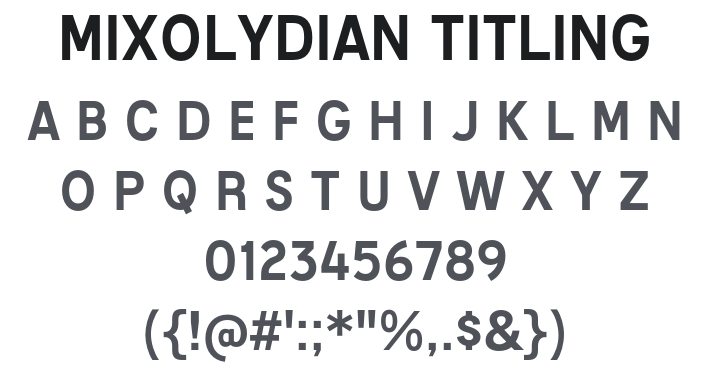
Mixolydian Titling Font Family
About Mixolydian Titling
Mixolydian Titling is a rugged, all-caps sans serif designed for clarity and authority. Its sharp geometry and subtle irregularities give it the look of something drafted by hand, precise but not overpolished. With six weights and matching obliques, it adapts easily from bold headlines to structured branding while maintaining its industrial integrity. Supporting a wide range of languages and available for free commercial use, it’s a dependable choice for posters, packaging, and editorial work that value strength over embellishment.